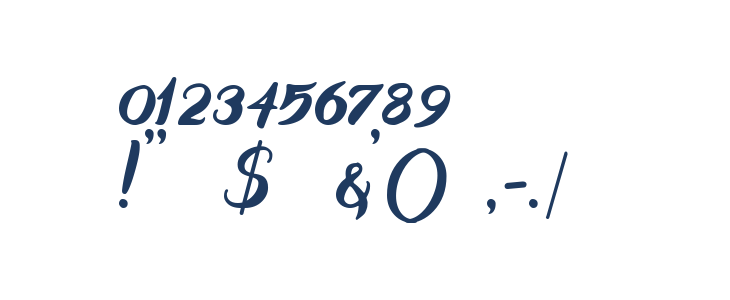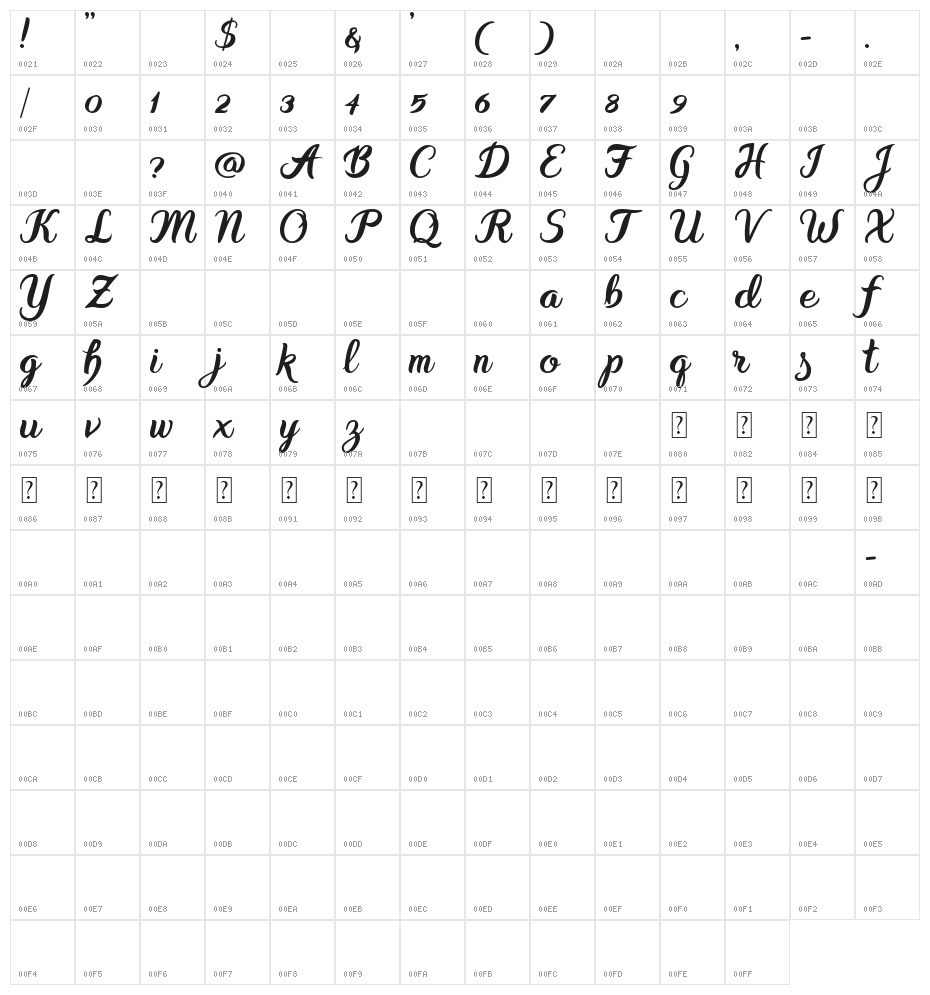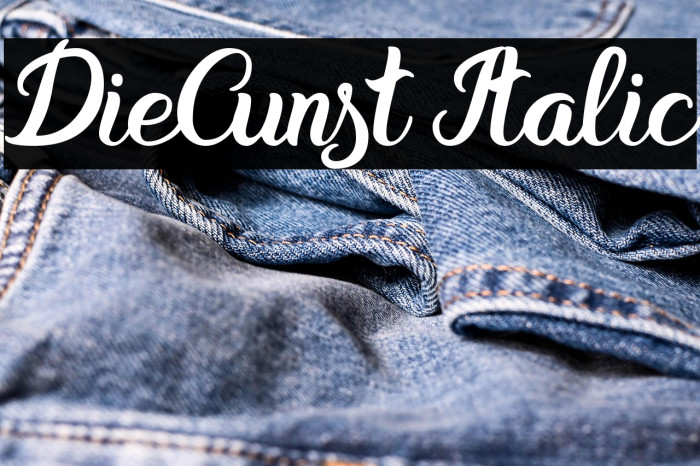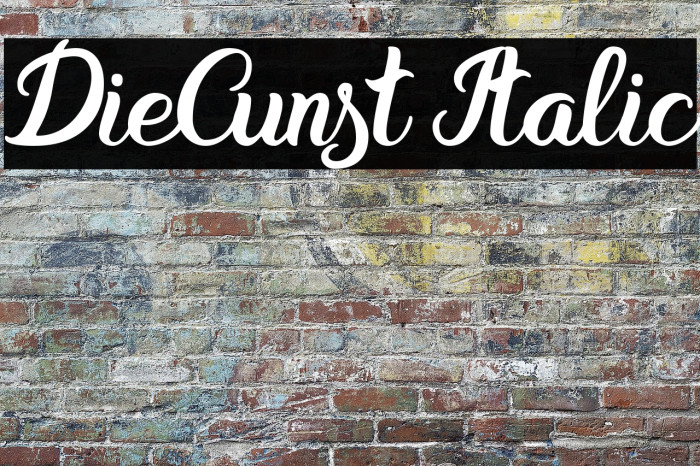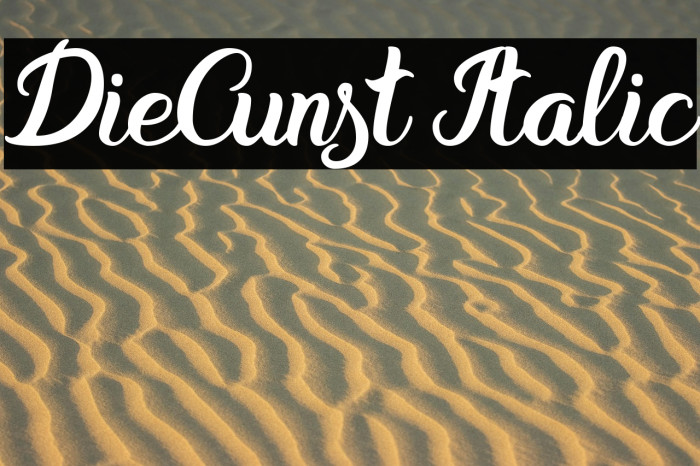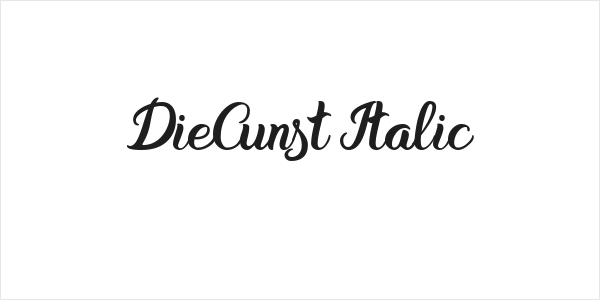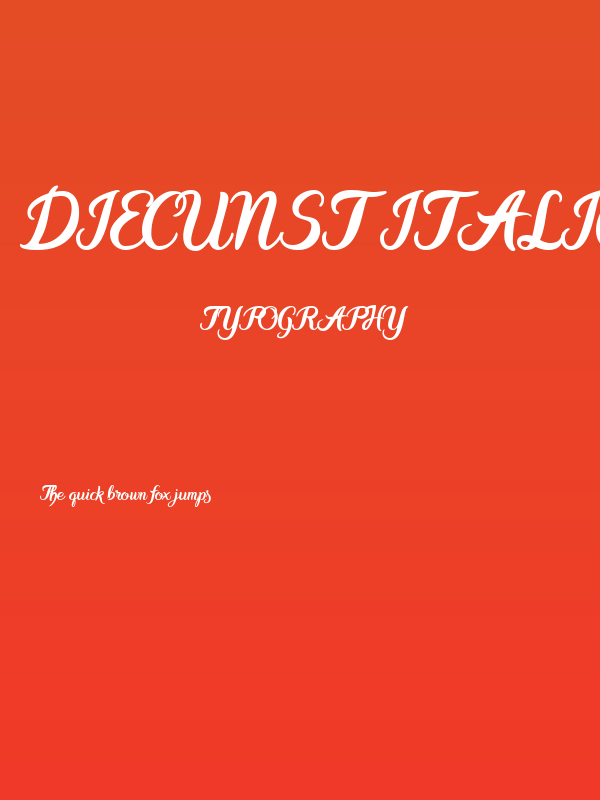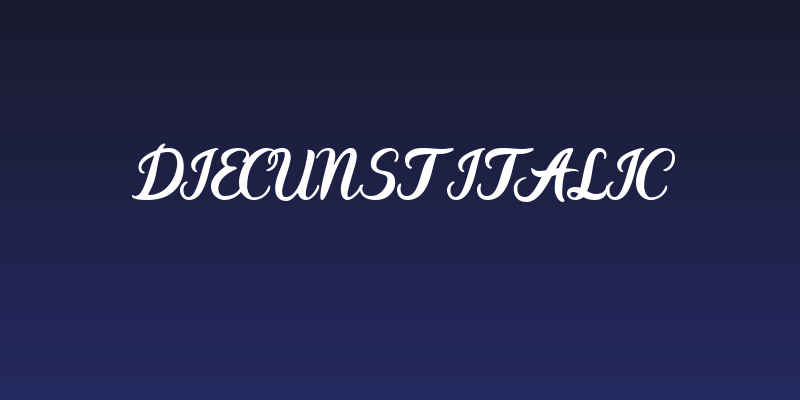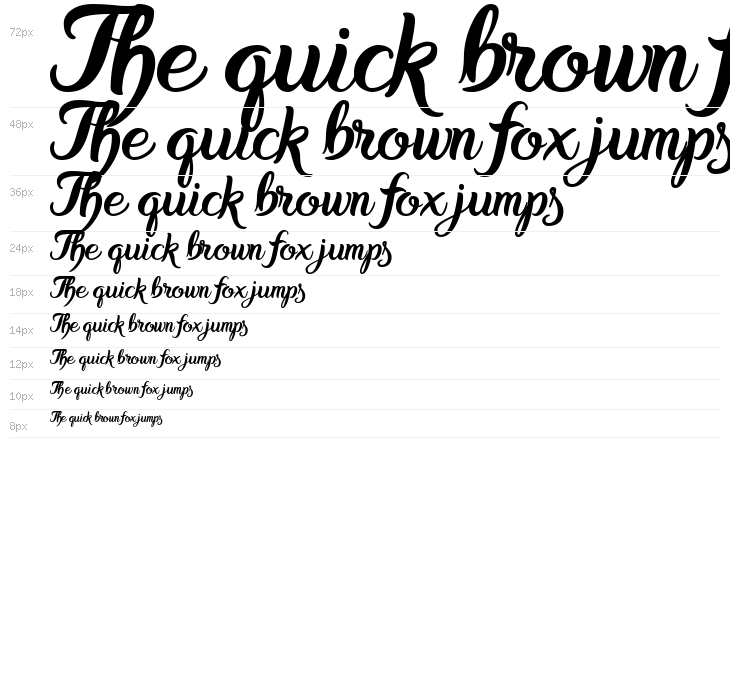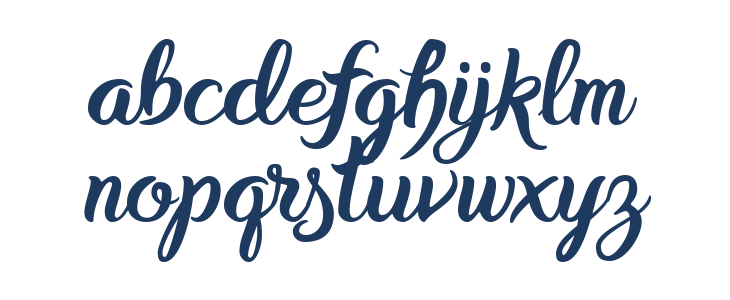
This font exudes a dynamic and elegant style, characterized by its flowing, cursive script. The letters are interconnected, creating a sense of continuity and fluidity. The uppercase letters are bold and prominent, while the lowercase letters maintain a consistent rhythm, enhancing readability. The numerals are distinct and well-proportioned, complementing the overall aesthetic. Special characters are designed with the same attention to detail, ensuring they blend seamlessly with the alphabet. This font's italic nature adds a touch of sophistication, making it suitable for a variety of creative applications.
Overall StyleElegant, Decorative
Use CaseLogos, Invitations, Branding
Proposed ProjectsIdeal for wedding invitations, greeting cards, branding, and elegant logo designs.